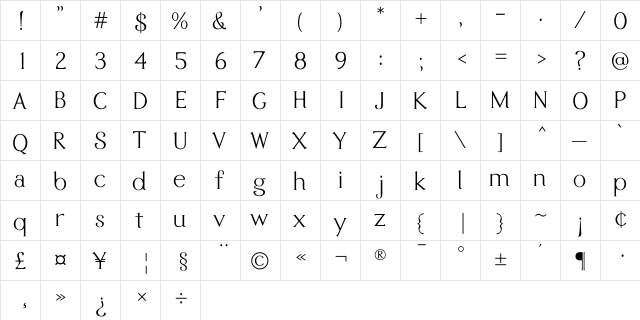
Eremite Regular
Design Context for Eremite Typeface
Eremite is a composed and adaptable typeface that performs quietly and consistently across a wide range of design contexts.
Pro Tip: Use Eremite in both headline and body roles to test its range before committing to a single application.